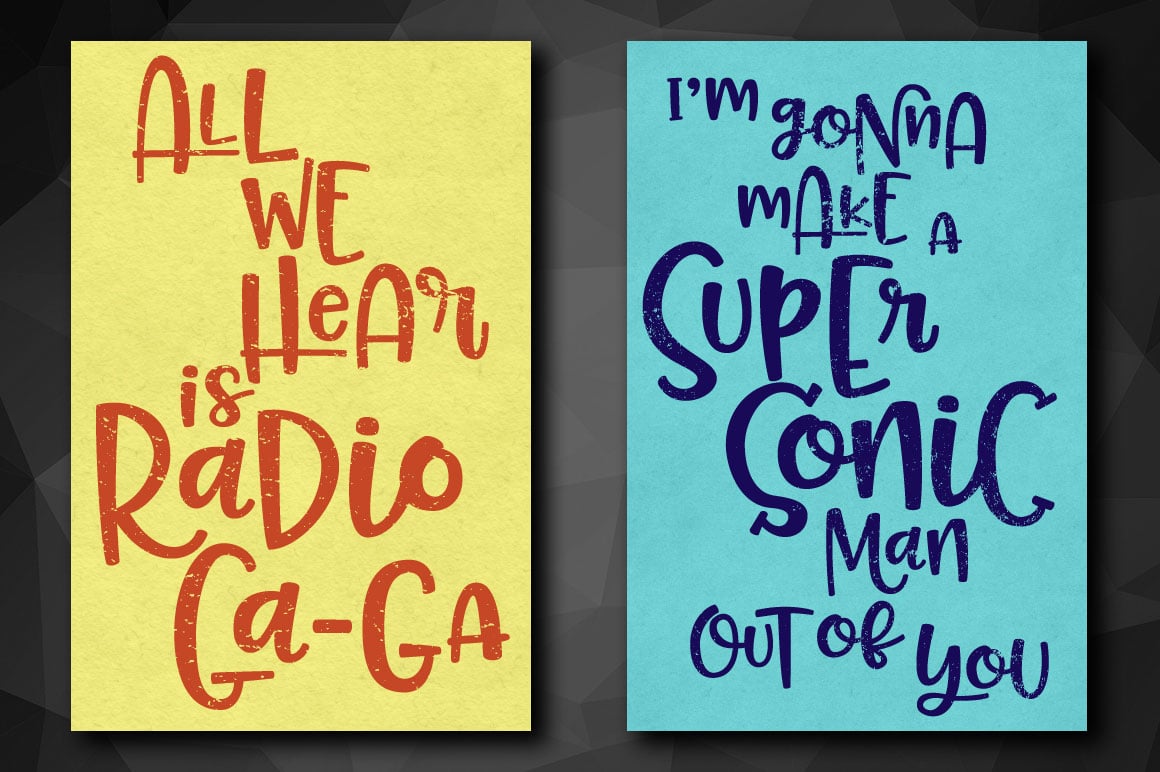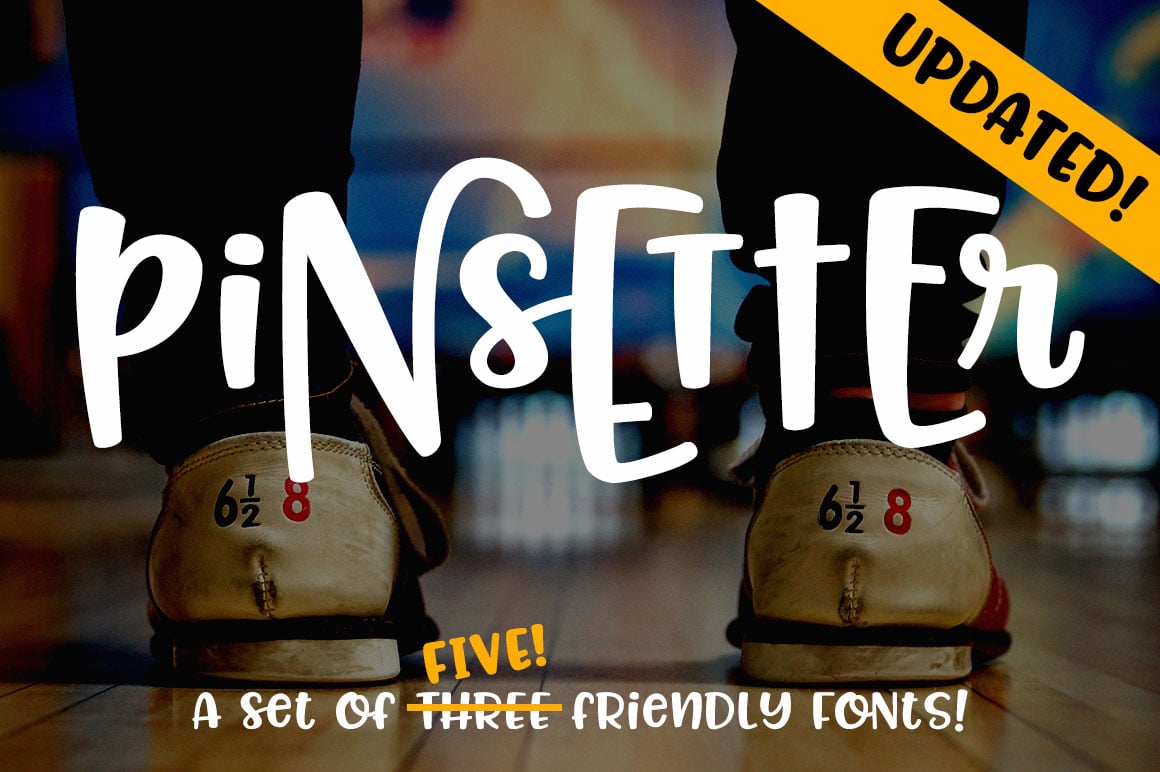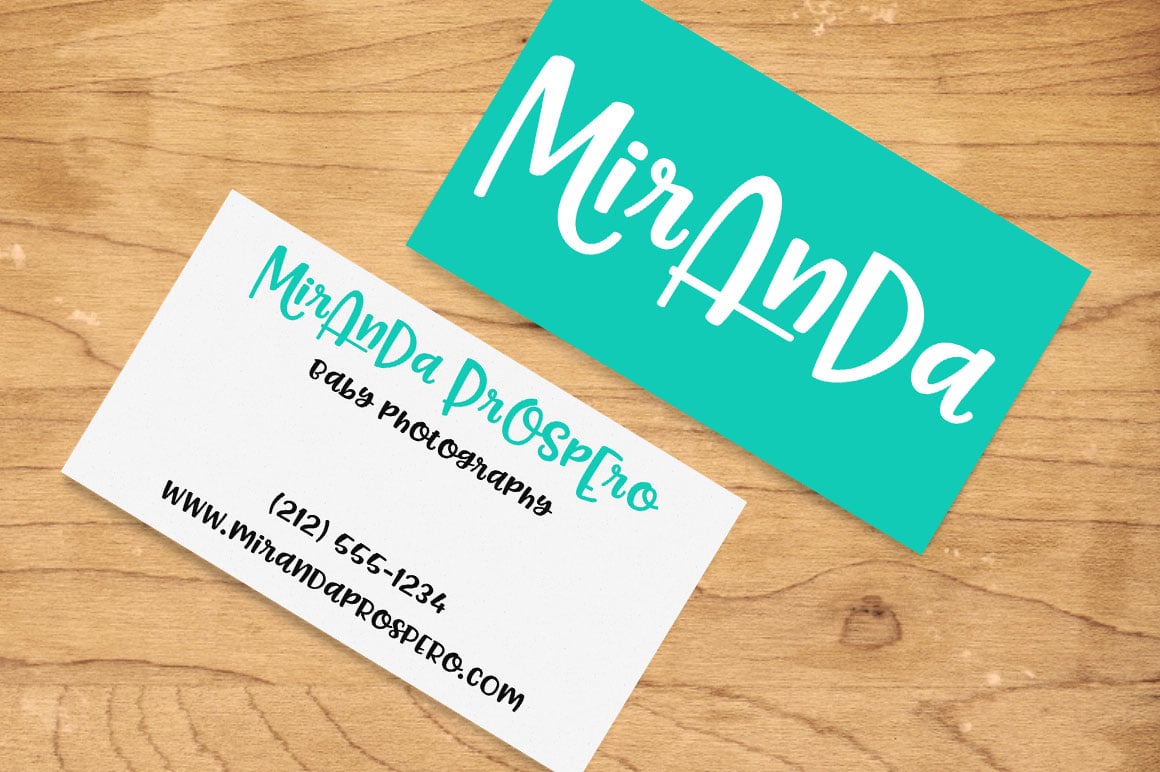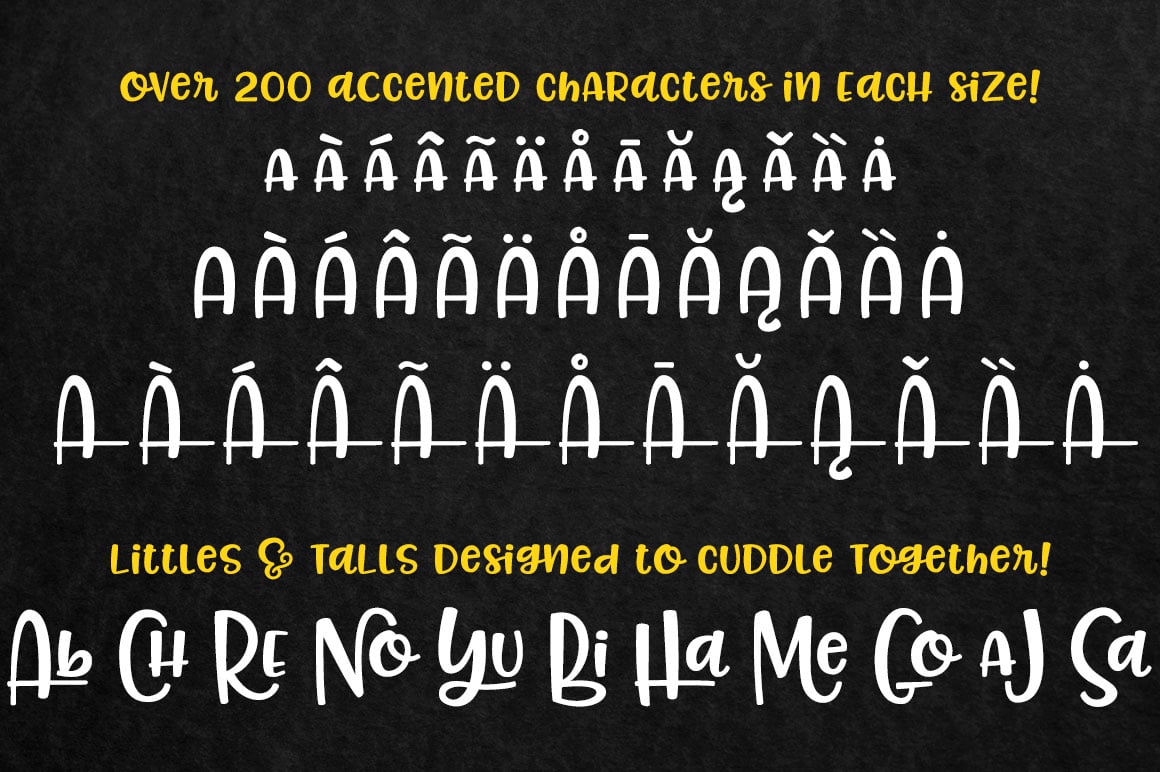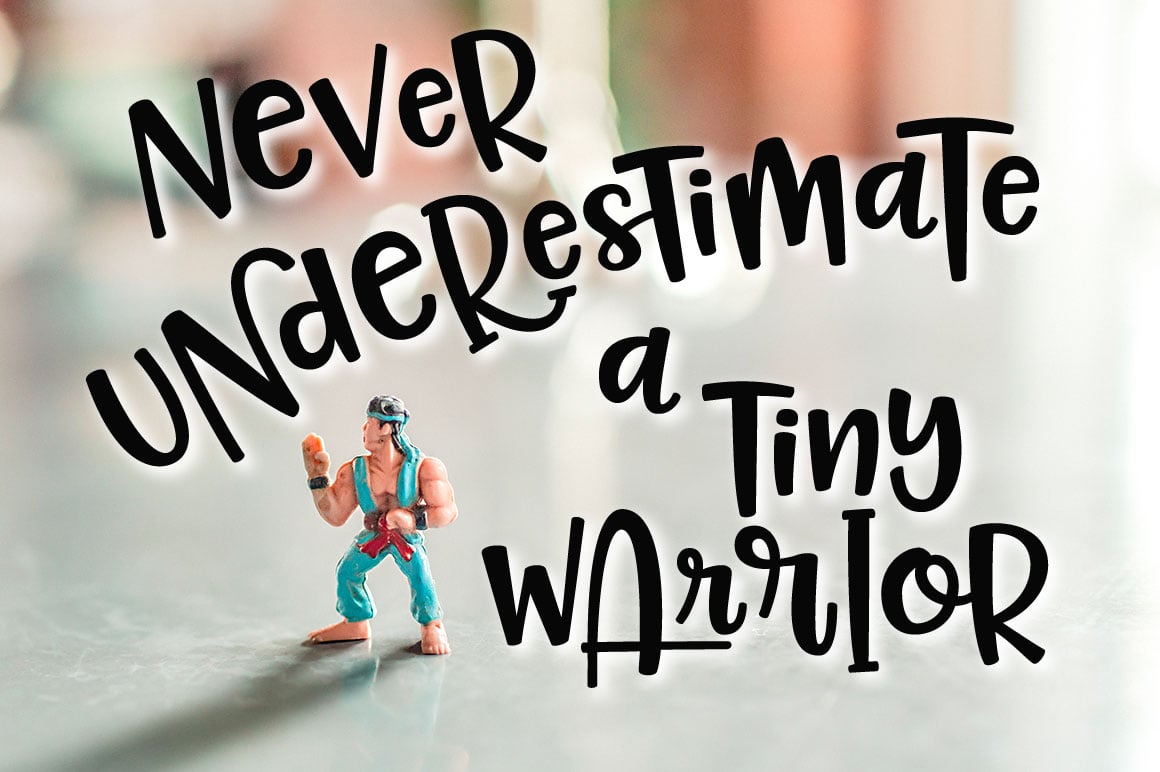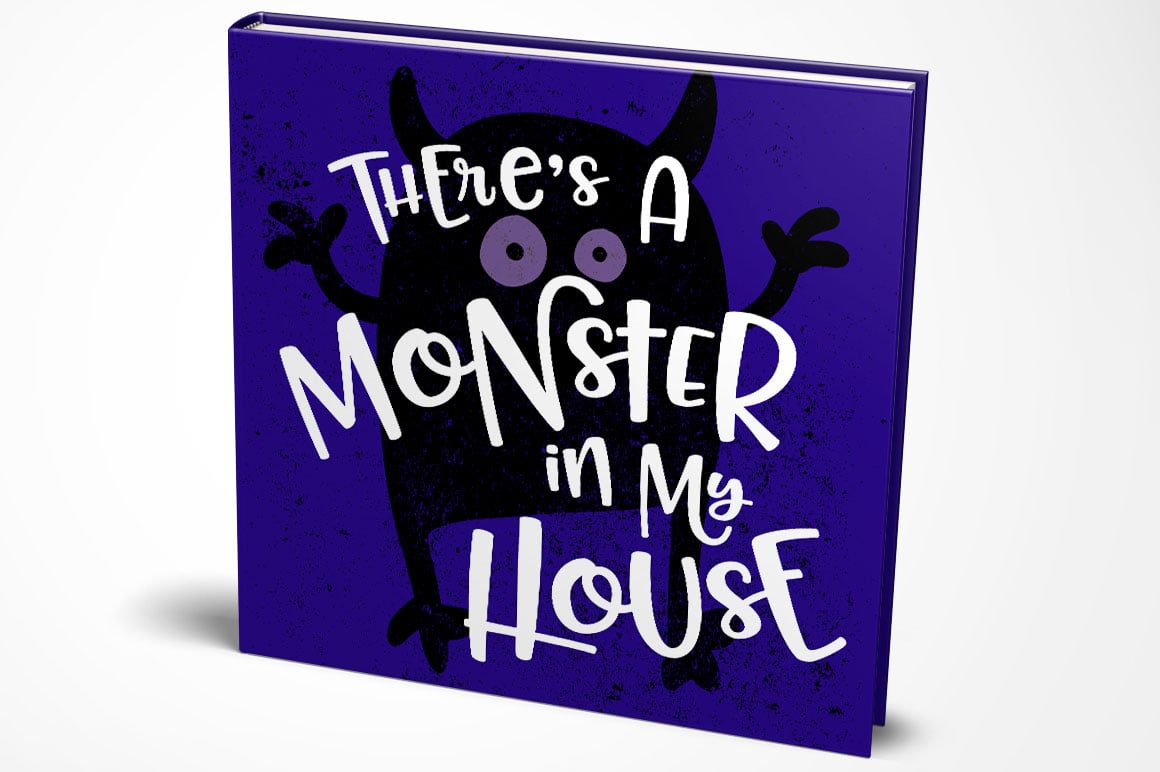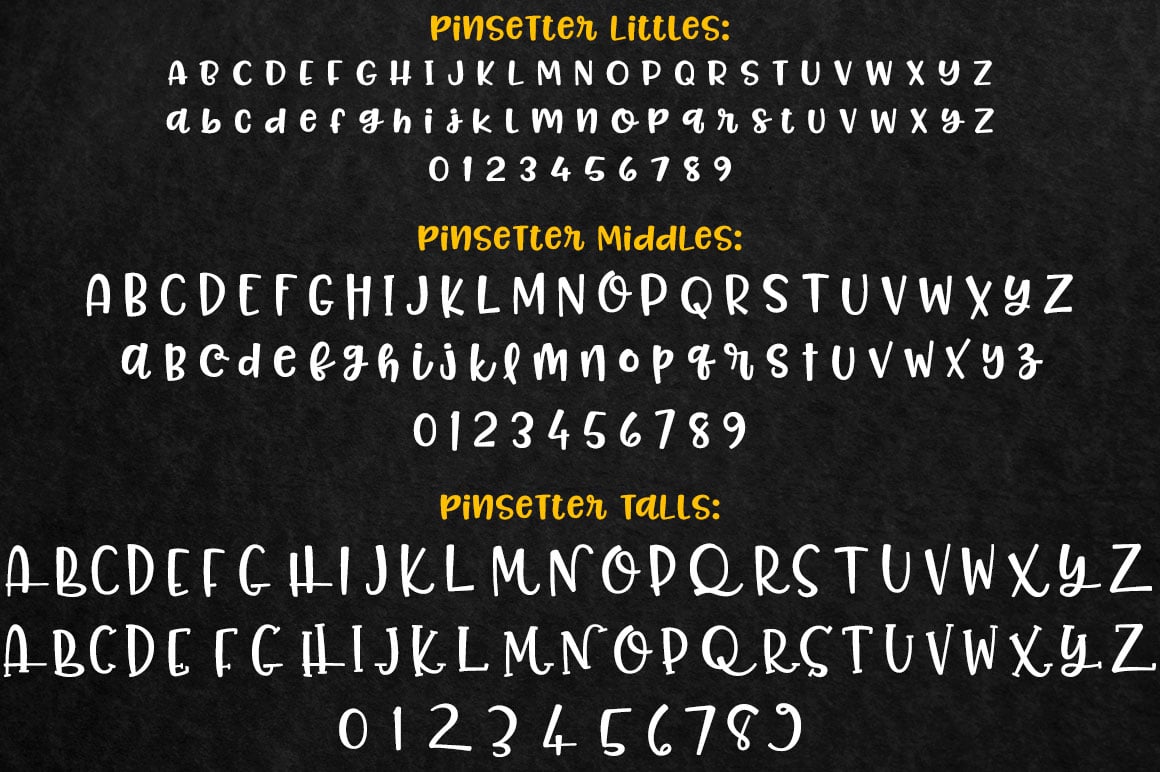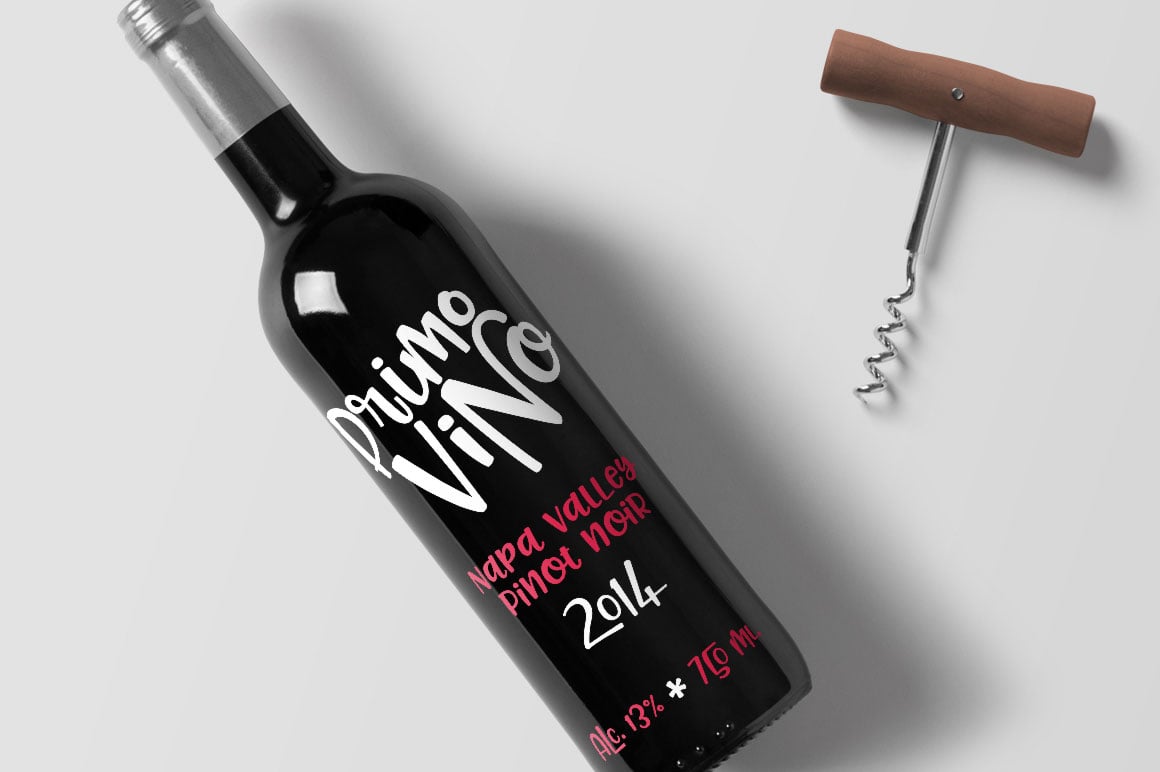
Pinsetter
Say hello to Pinsetter, a set of fun hand-lettered fonts that mix and match and snuggle together like one big alphabet family.
Both the Littles and Middles alphabets can stand alone on their own, or they can mix together. And the Talls are designed especially to cradle the Littles, so you can make fun combinations galore!
For those who like to work within one font, using OpenType features, you're covered -- Pinsetter Complete contains all three alphabets! Default is the Littles; just hit the Swash button to get the Middles, and the Stylistic Alternates button to get the Talls! But if you don't have easy access to OpenType alternates, never fear! I've also broken the three alphabets out into Pinsetter Littles, Pinsetter Middles, and Pinsetter Talls, so everyone can mix and match no matter what software they're using. Each set includes its own set of uppercase, lowercase, numbers, and over 200 accented characters!
UPDATE, March 2018! I've added in two new files: Pinsetter Littles Hollow, and Pinsetter Little Chunk.
Pinsetter Littles Hollow is an outline version of the Pinsetter Littles -- you can use them on their own, or they'll stack right on top of the Pinsetter Littles for a two-color outlined look. Pinsetter Little Chunk is a fully revamped version of Pinsetter Littles. Everything's been thickened up to be more bold; the letters are more rounded; and everything's been cleaned up and modified -- some a little bit, and some quite a lot!